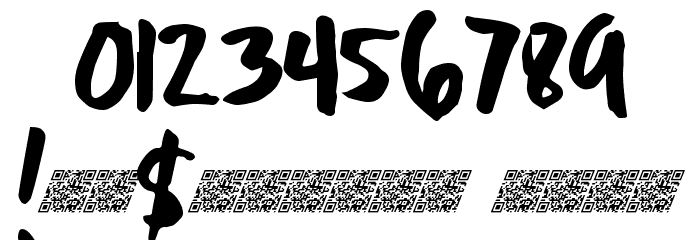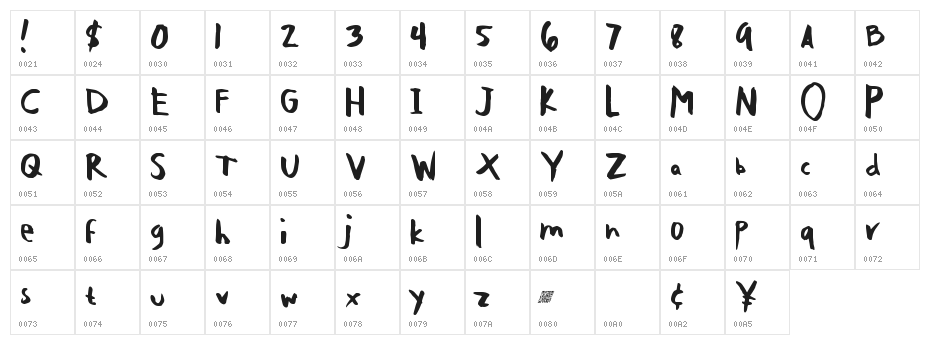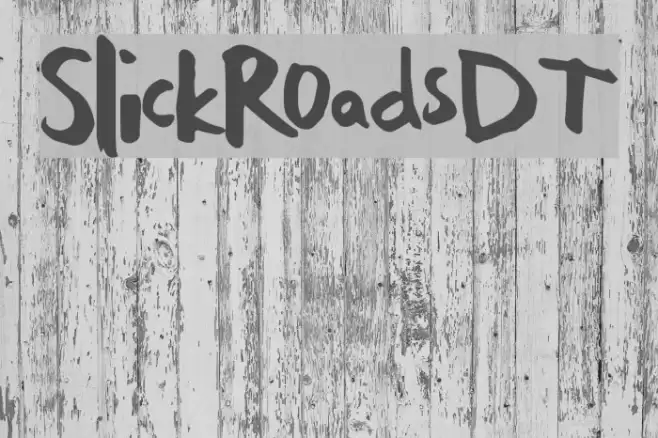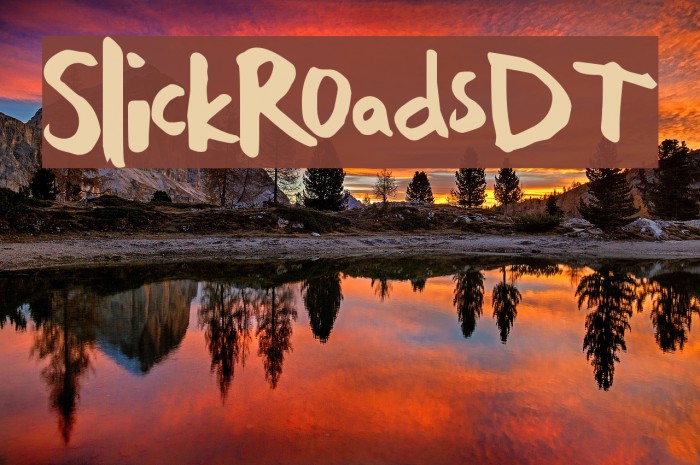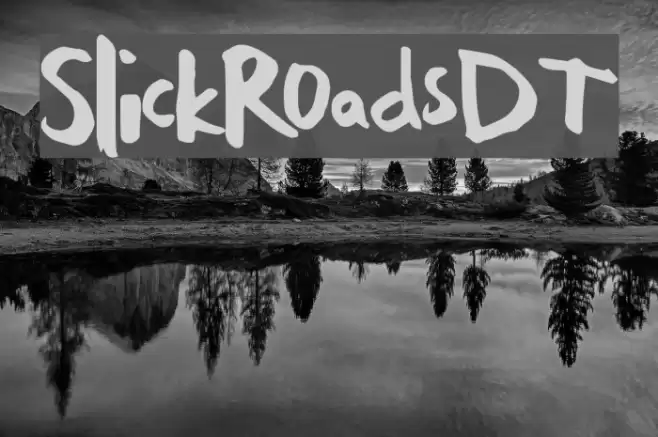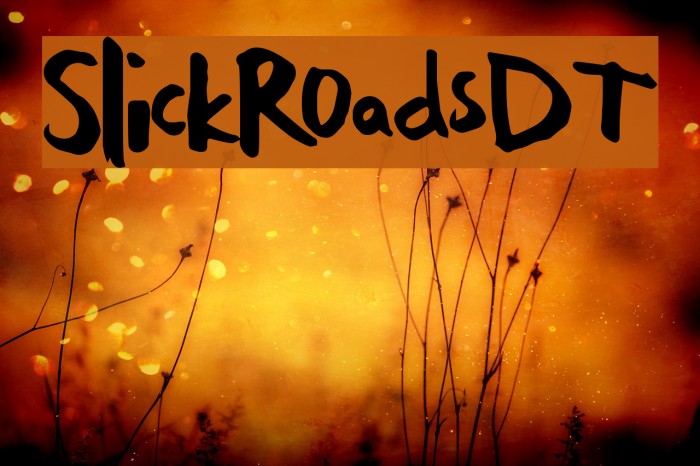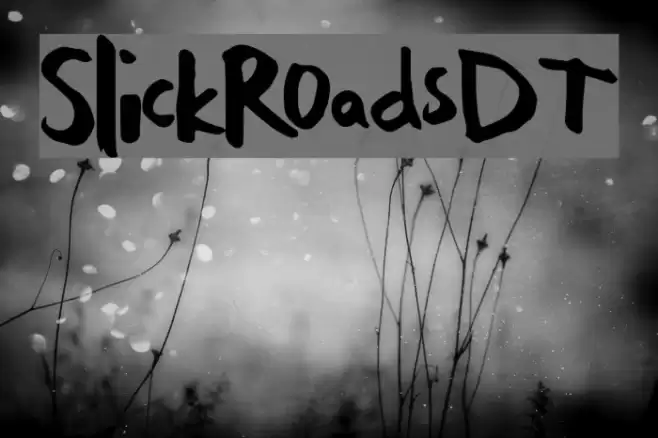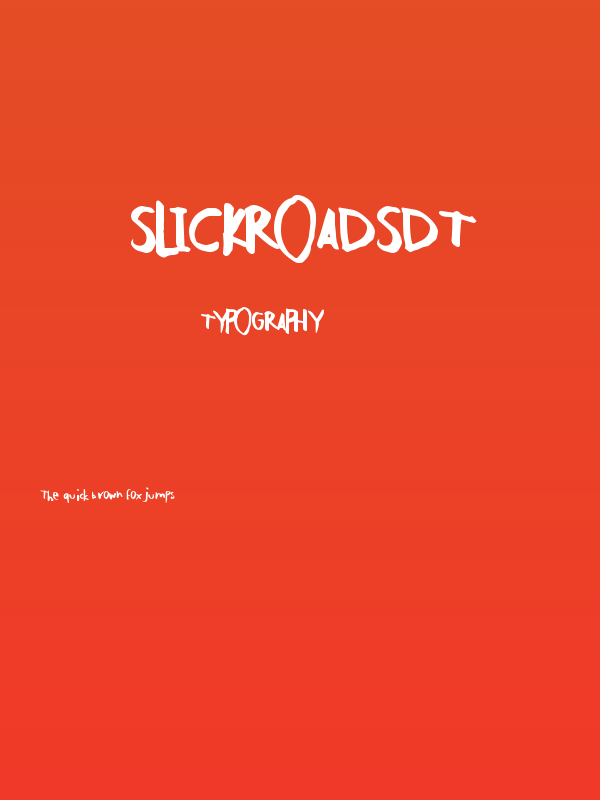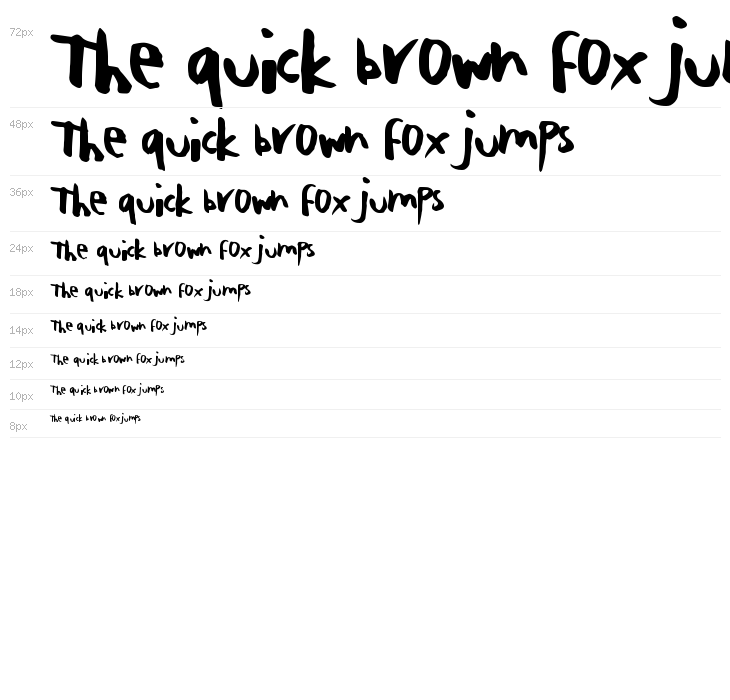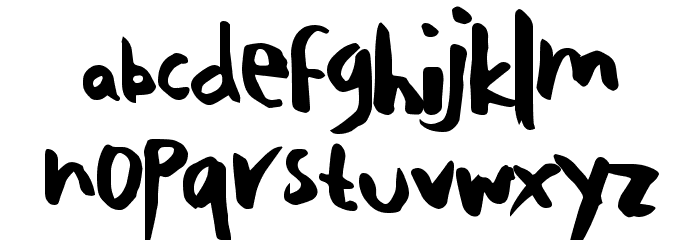
SlickRoadsDT Font
SlickRoadsDT Description
This font features a bold, handwritten style with a playful and energetic appearance. The letters are unevenly weighted, giving it a dynamic and informal look. The strokes are thick and vary in width, adding to the casual and spontaneous feel. The characters have a slightly slanted orientation, enhancing the impression of movement and fluidity. The overall design is reminiscent of graffiti or street art, making it suitable for projects that require a bold and expressive touch. The numbers and special characters maintain the same lively style, ensuring consistency across all elements.
| Proposed Projects | Ideal for street art designs, youth-oriented branding, event posters, and creative social media graphics. |